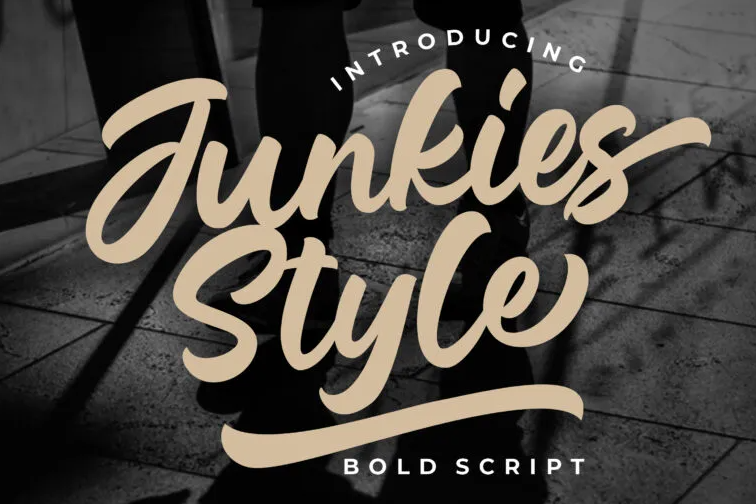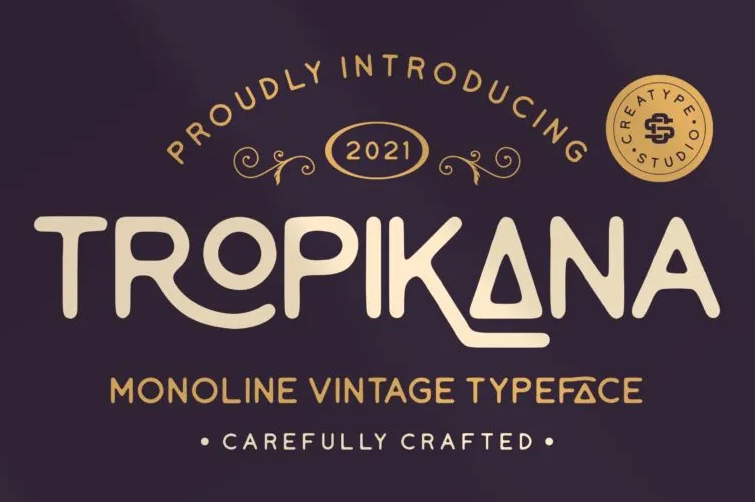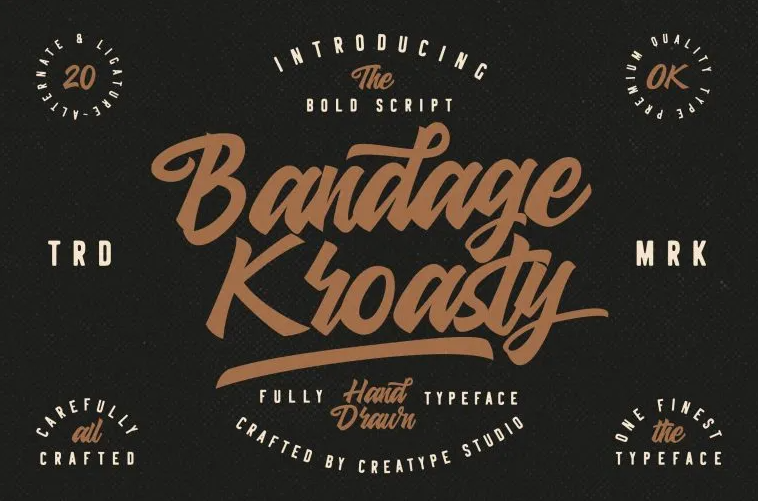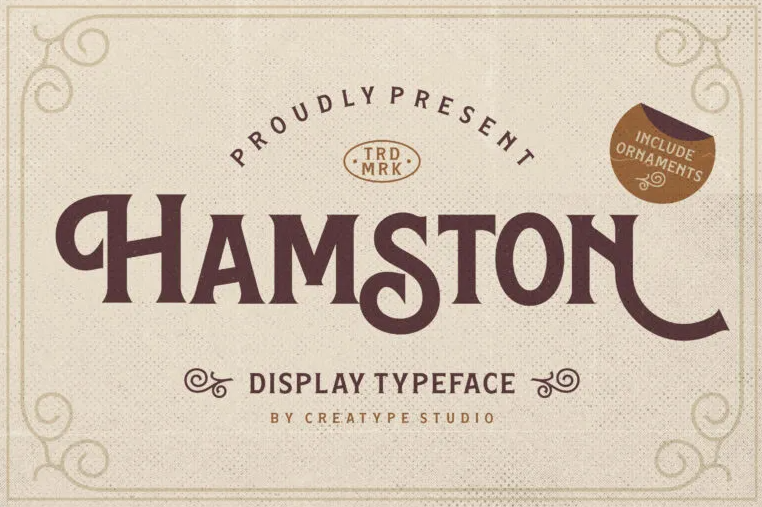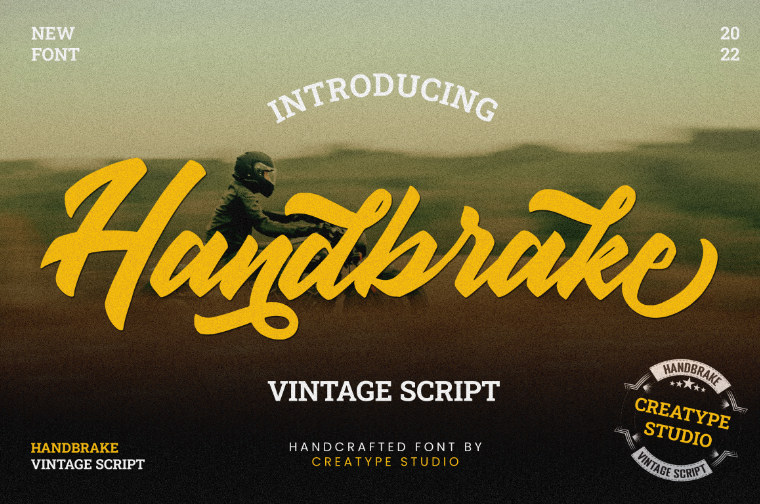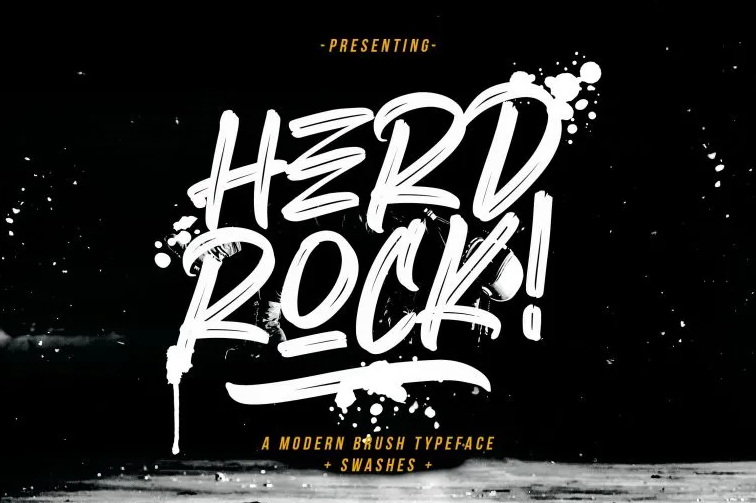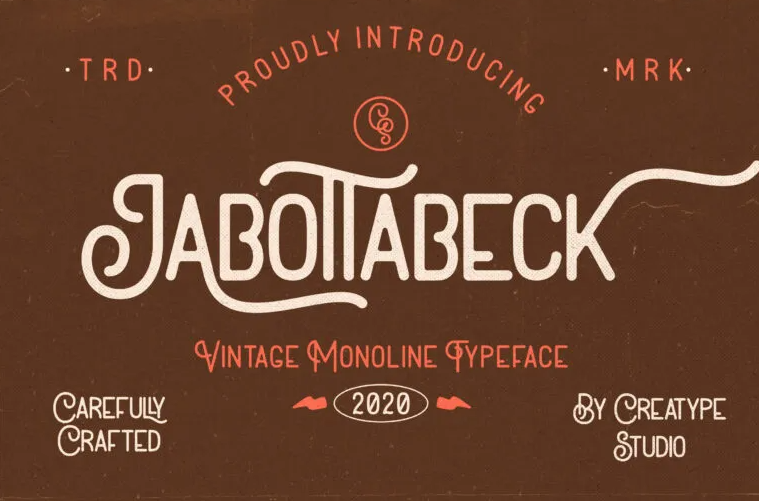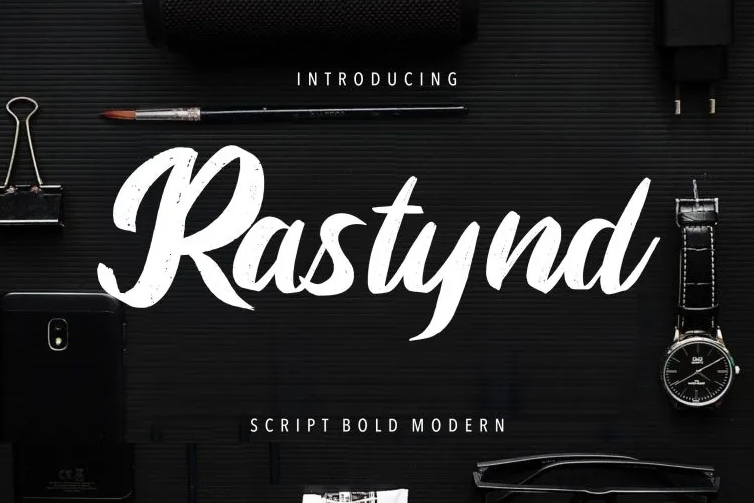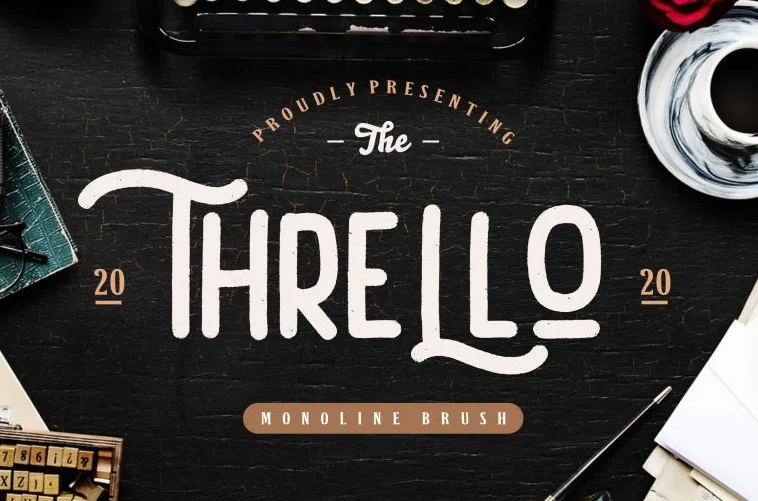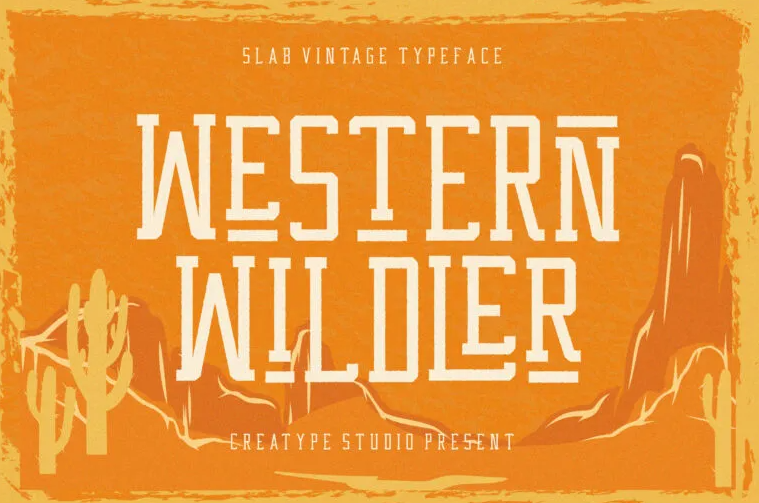
15+ Uncharted Font for Barber Shop Branding and Logo
15+ Uncharted Font for Barbershop Branding and Logo
Choose your font wisely! Why? Because it also matters for the barbershop owners to build their barbershop brand identity better than ever. So, twist your branding design with the right choice of font for a barber shop. Check out the sets below!
15+ Kicking Choices of Font for Barber Shop Brand Identity
Without further ado, let’s dive into the following collection!
1. Jabottabeck
Make a way for Jabottabeck, a vintage font in the Monoline family! Vintage never gets out of style, but this font also offers you a kicking style with the swash touch on alternate styles that are just attractive.
2. Hamston
Through its character set average width and weight, Hamston is a great choice as a display font for barbershops. Not only does it offer a strong presence, but in addition, the legibility is just pleasing to the eyes.
3. Gasthyon
Set a unique mood to your barber shop logo and design by applying a brush font like Gasthyon. Brush fonts are known for giving a texture that is suitable for both contemporary and classical style designs.
4. Whisholder
Create remarkable vintage lettering for your barbershop using Whisholder! This font comes in Victorian style, a beautiful yet firm serif with some vectors in an adventure theme.
5. Hypebeast
Hypebeast style is similar to Whilsholder. However, this one has various layering styles that will put a different mood and tone. Accordingly, Hypebeast also is available as a font for barber shop website, along with logos or signage.
6. Rastynd
If you want a brighter tone of barbershop logo design, Rastynd is obviously a great pair to the objective. This script font provides good readability with bold and thick strokes and lines.
7. Bandage Kroasty
Bandage Kroasty represents a modern yet elegant profile through the natural handwriting style. This script font makes a great pair to various men’s products.
8. Thrello
Want some adventurous style for your barbershop branding? Utilize Thrello, the font offers you both retro and vintage tones which make it more versatile for various design projects.
9. Herd Rock
Herd Rock is the perfect font for barbershops that are more hipster or with street style. Don’t worry about the readability, you can adjust the kerning, and lead accordingly to make it more attractive in an amusing way.
10. Mattador
This Mattador vintage retro display font certainly has a masculine mood in the characters’ lines and strokes. With this font, you can create an authentically old-style and rough look.
11. Antipathy
Compared to the other retro font style mentioned earlier, Antipathy is a font for barber shops with a cleaner and more casual finish. Yet, the stamp texture style makes its appearance more rough, suitable for a barbershop’s profile in grunge style.
12. Tropikana
Tropikana may have looked a bit condensed for a monoline typeface. Still, this one has a quirky design for several characters. In addition, Tropikana also has a somewhat cool tone which makes you think about comforting products.
13. Western Wildler
Inspired by the wild west life, Western Wildler has a sturdy look that describes the slab serif typeface at its best. This font will make an eye-catching font for barber shop website copy!
14. Junkies Style
In case you are looking for fonts with a classic rock ‘n roll mood, Junkies Style bold script font is that one! There is a bit of street style that goes well to bring a more manly profile to your logo design.
15. Handbrake
Unlike motorcycle’s hand brakes that can be rough sometimes, Handbrake vintage script slides smoothly in various kinds of design material. It’s a classic yet elegant font for barber shop’s signage, logo, or ads for branding.
16. Gilligan Shutter
Here’s a font that will give your barbershop’s signage or logo neon box a sophisticated natural handwriting finish. Gilligan Shutter looks bold and chic even for website text, the perfect choice for your barber shop!
Why Should You Choose Font for Barber Shop In Accordance with the Brand?
Today’s barber shops also serve as a place where clients build their physical and community identity. Obviously, font is one of the branding elements that will help deliver your message to your customer. Hence, while choosing the ideal font, consider the profile, and persona of the barber shop that you want to build.